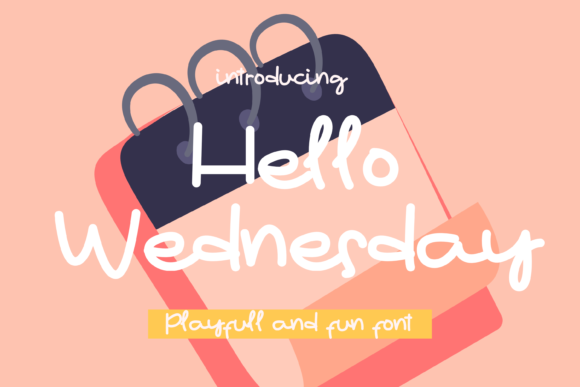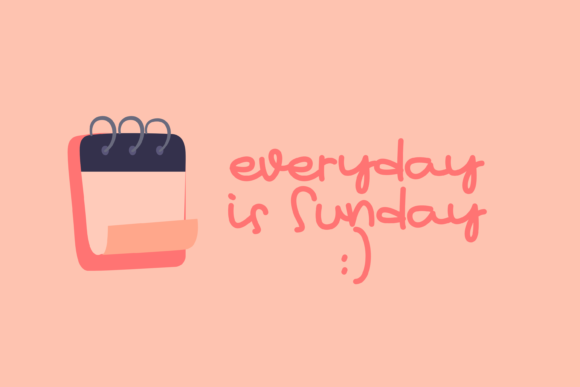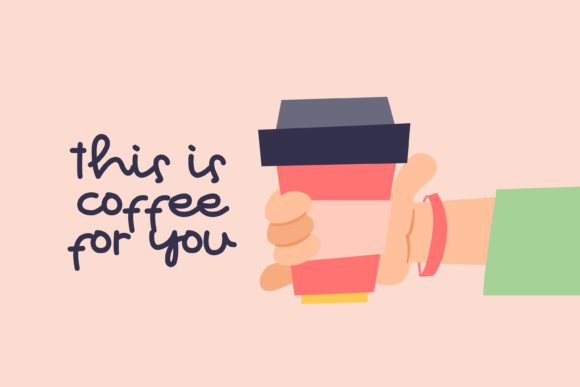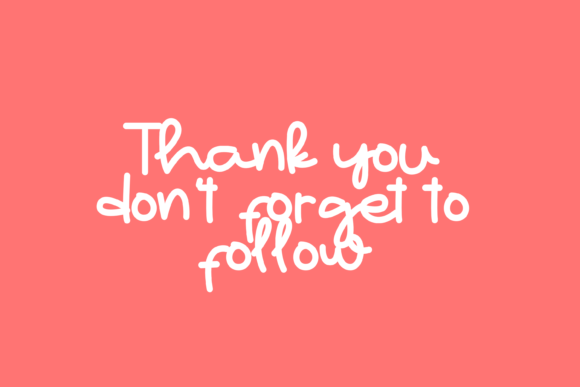
Hello Wednesday Font
About Hello Wednesday Font
Hello Wednesday is a playful and fun handwritten design. It will elevate the look of your most creative projects by adding a stylish and attractive feel!